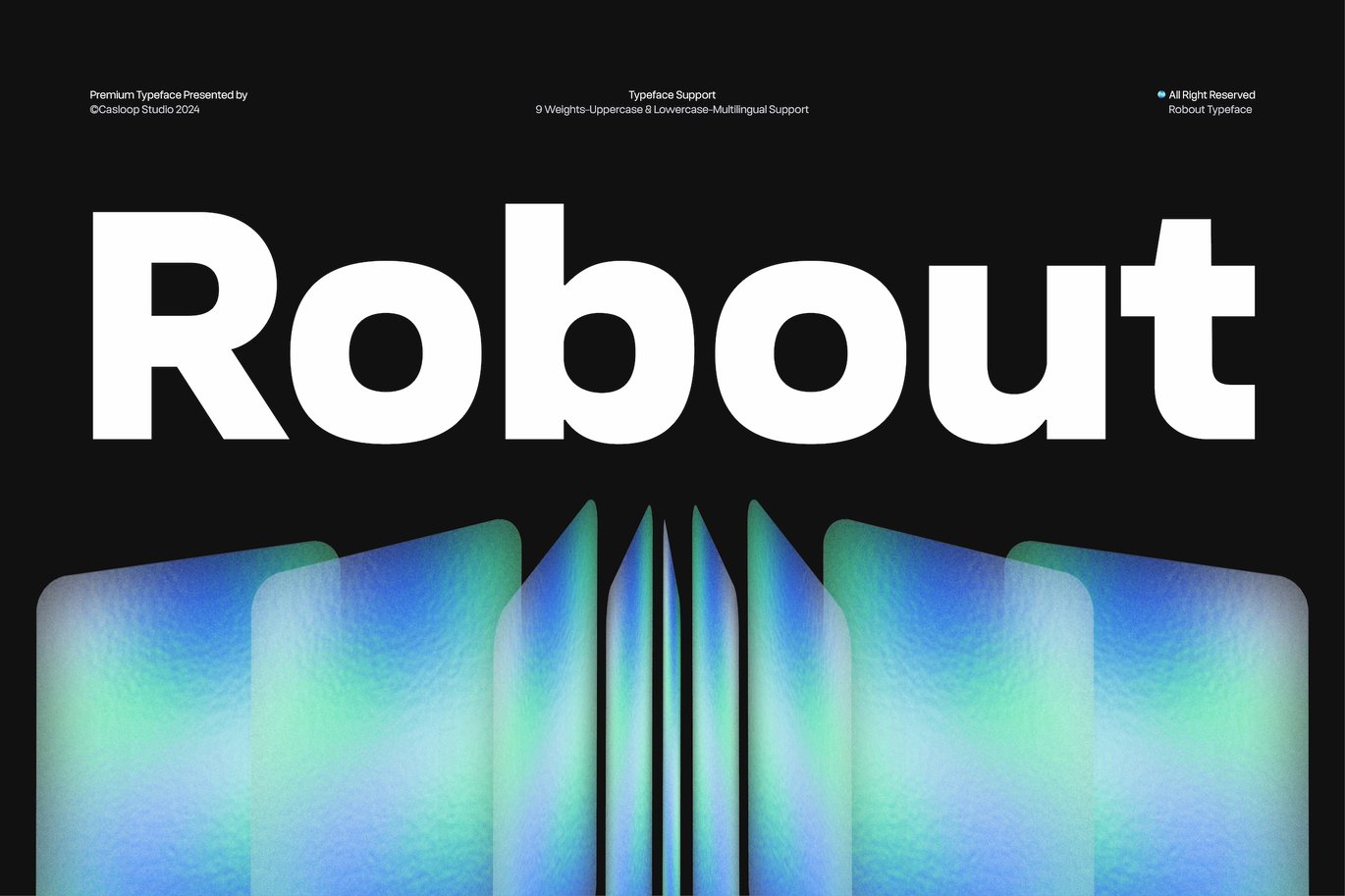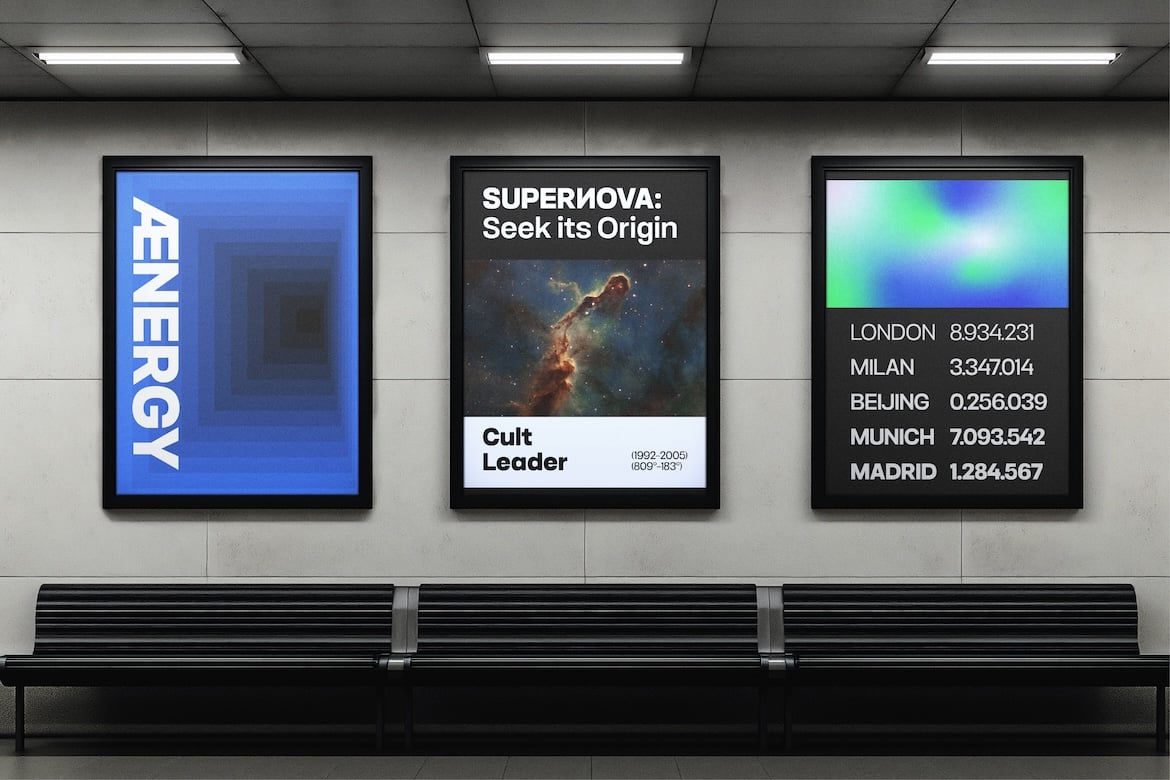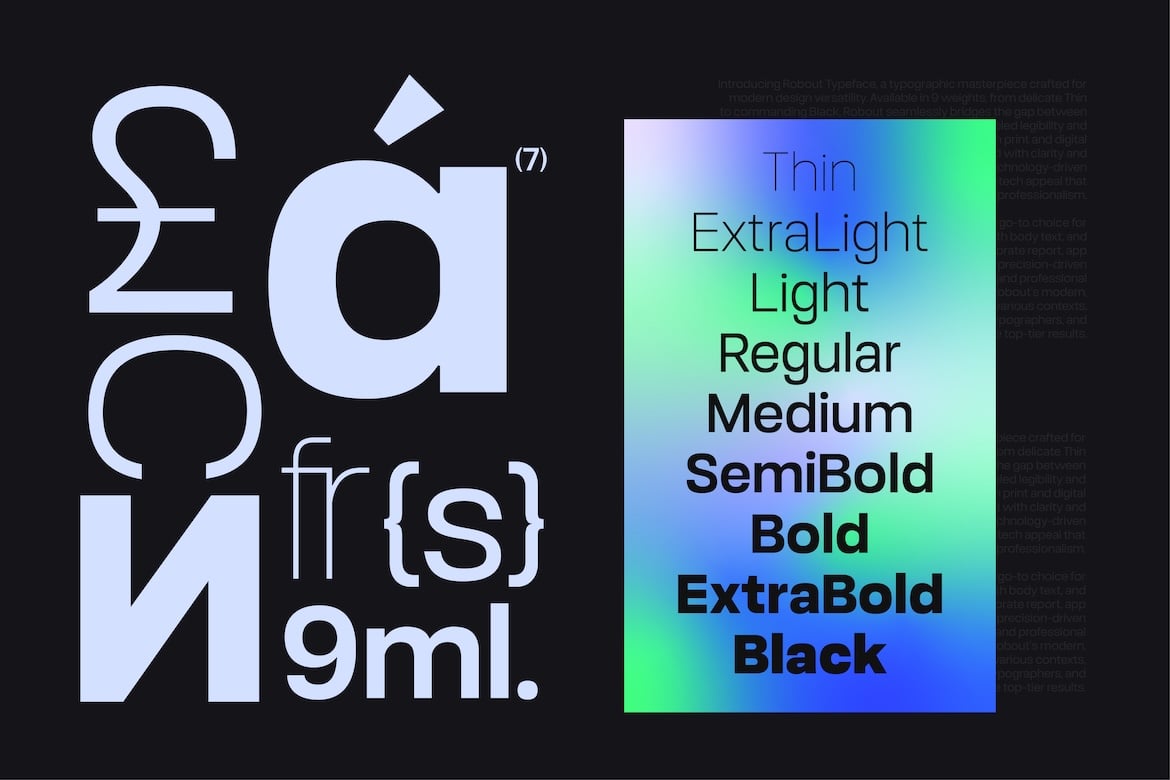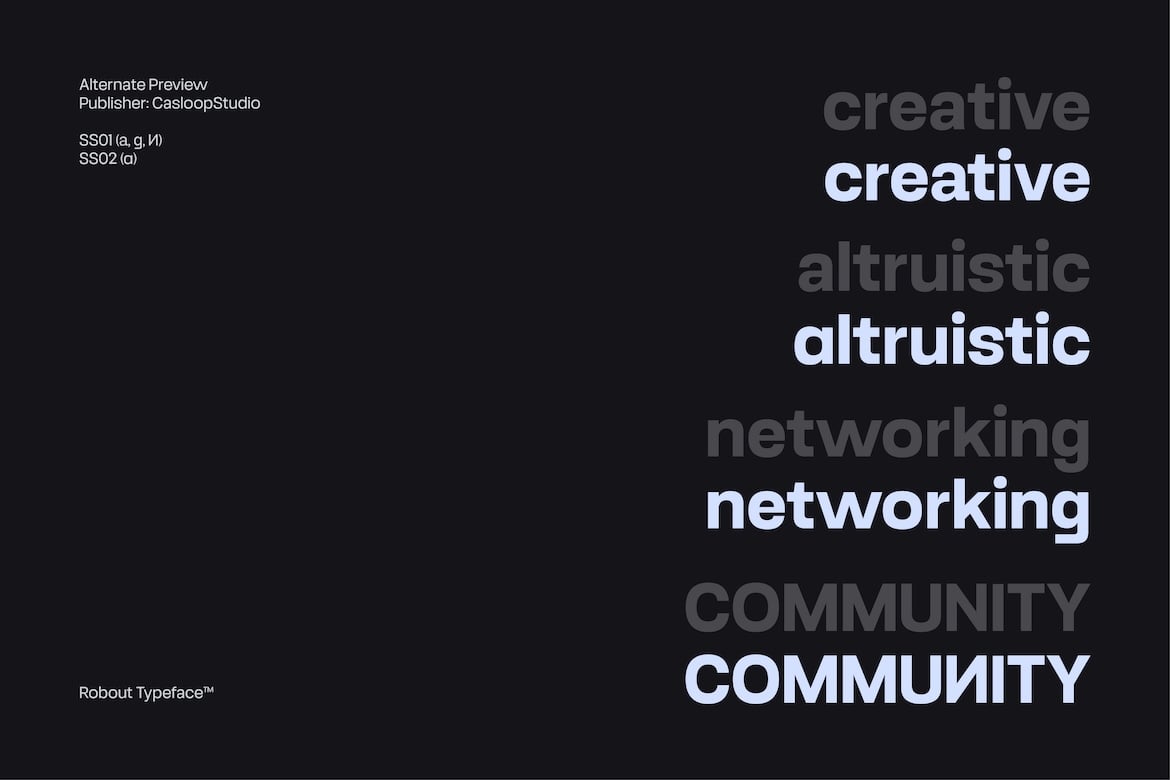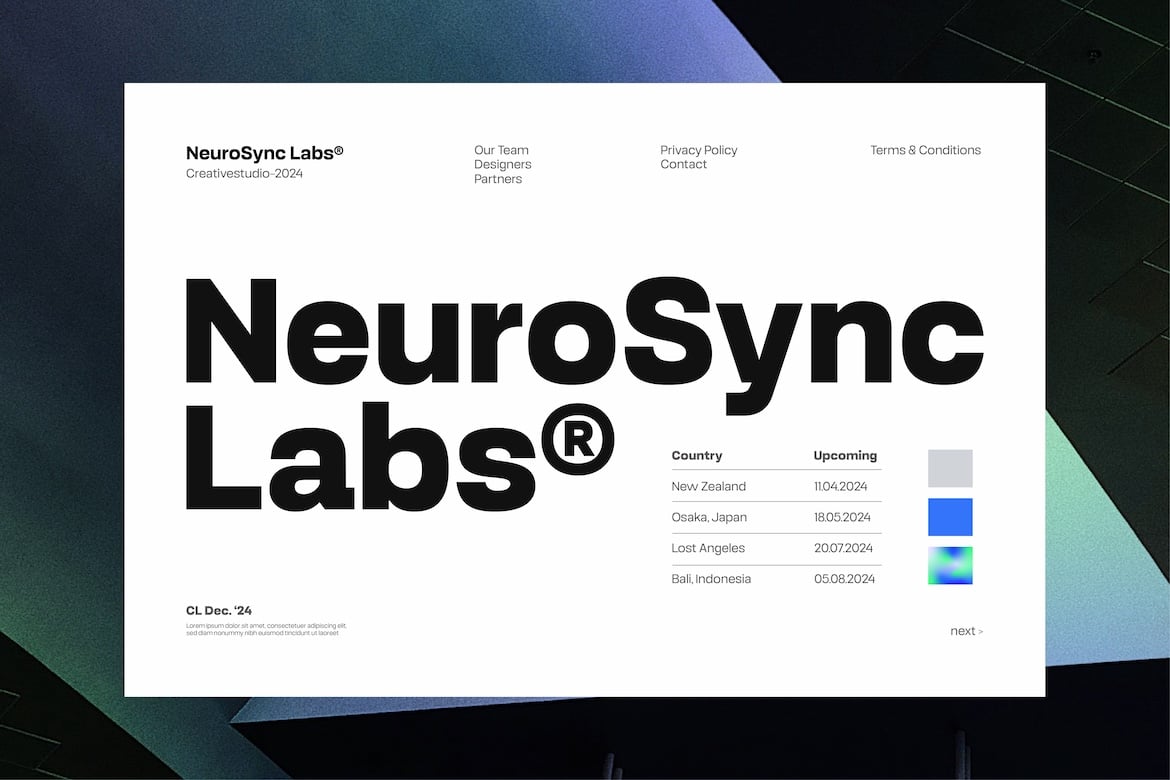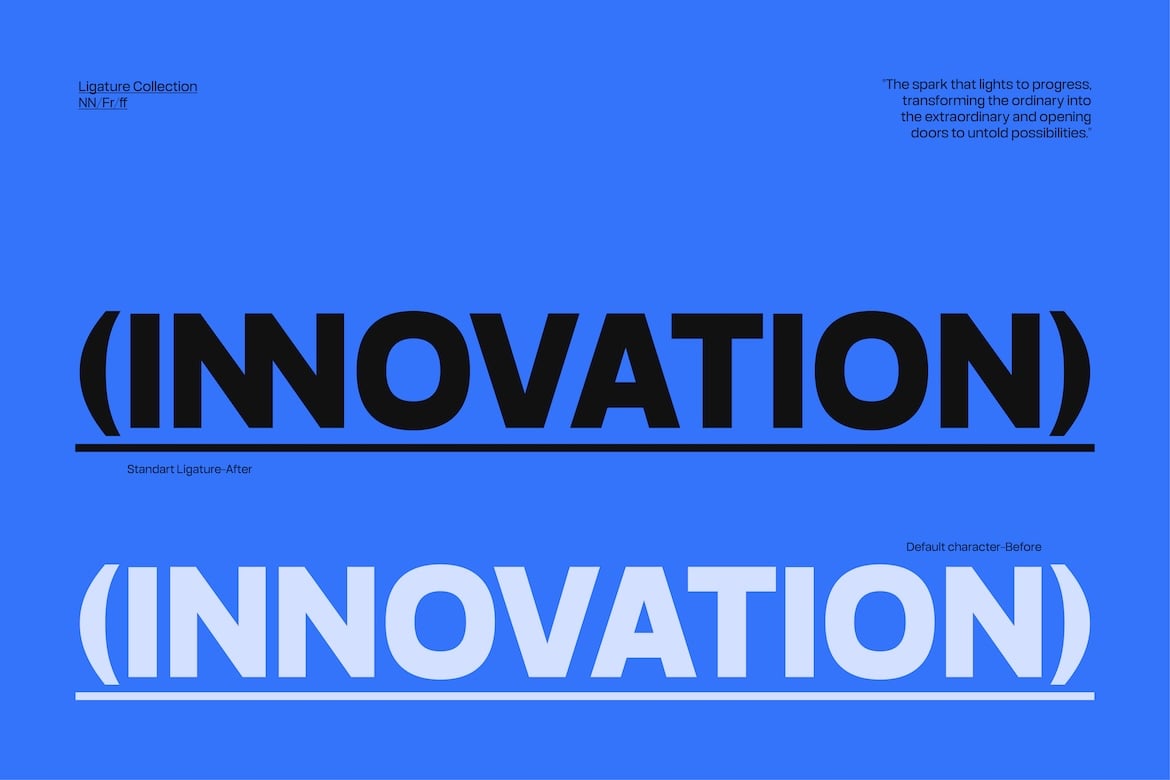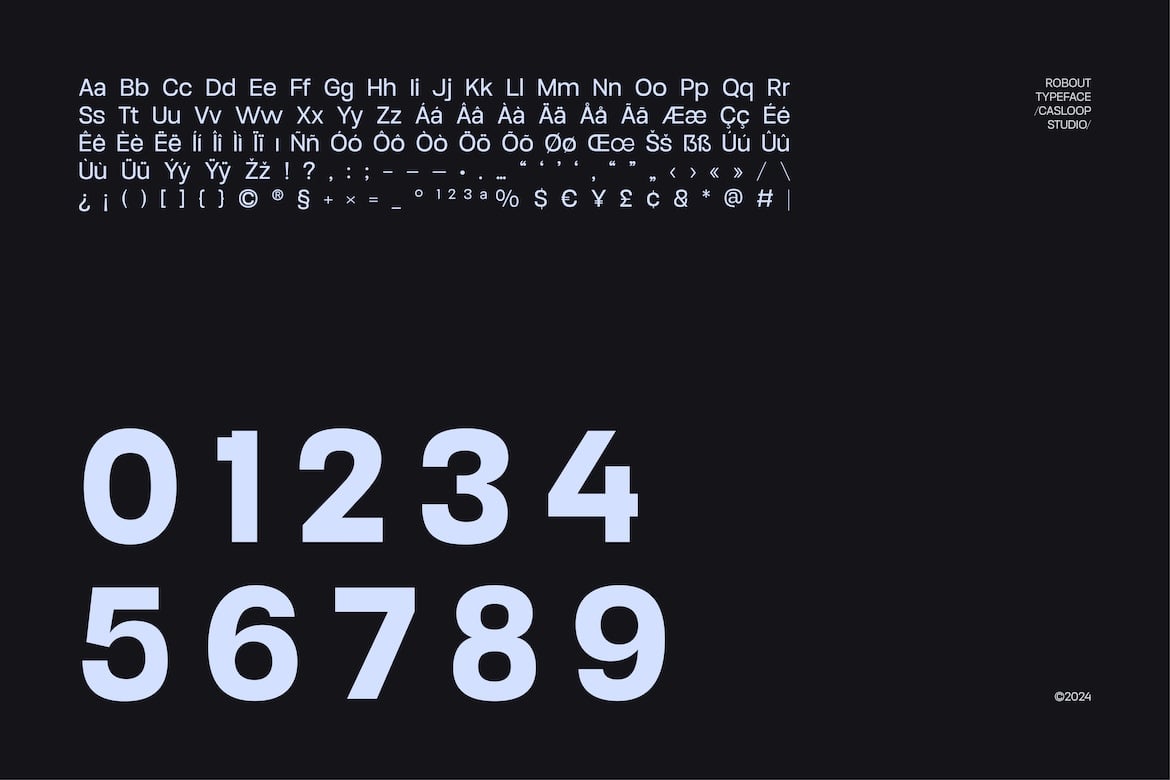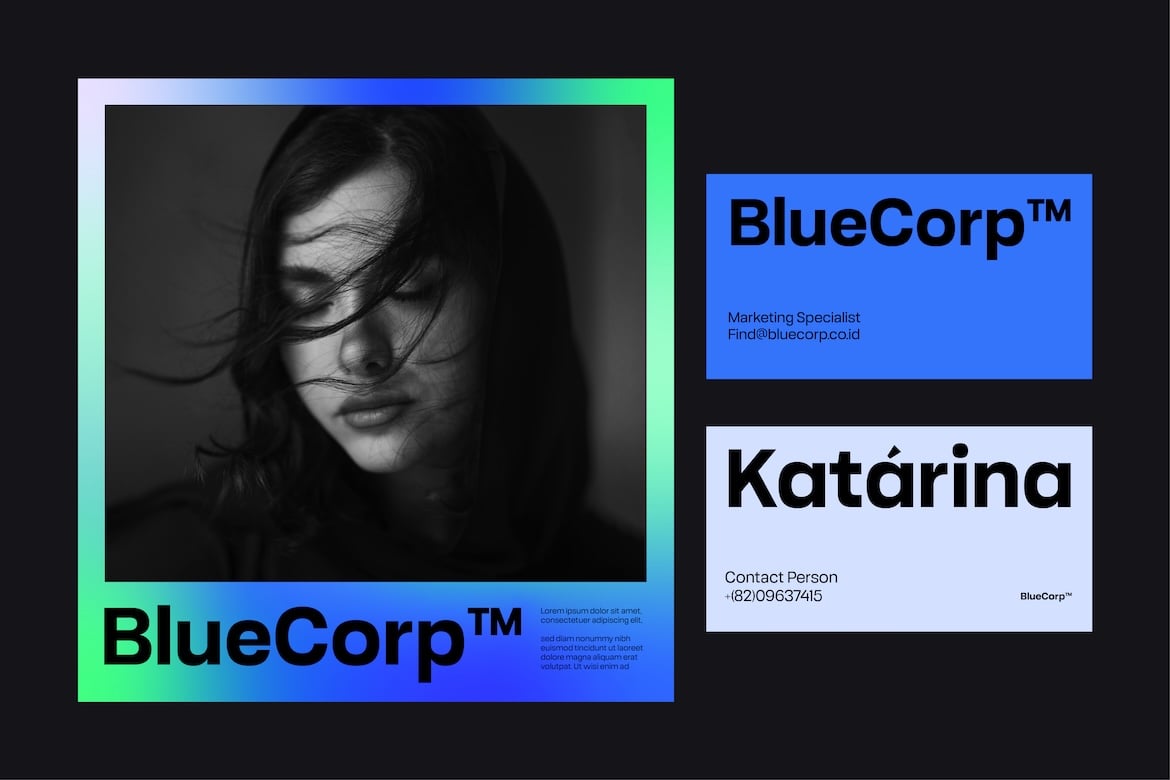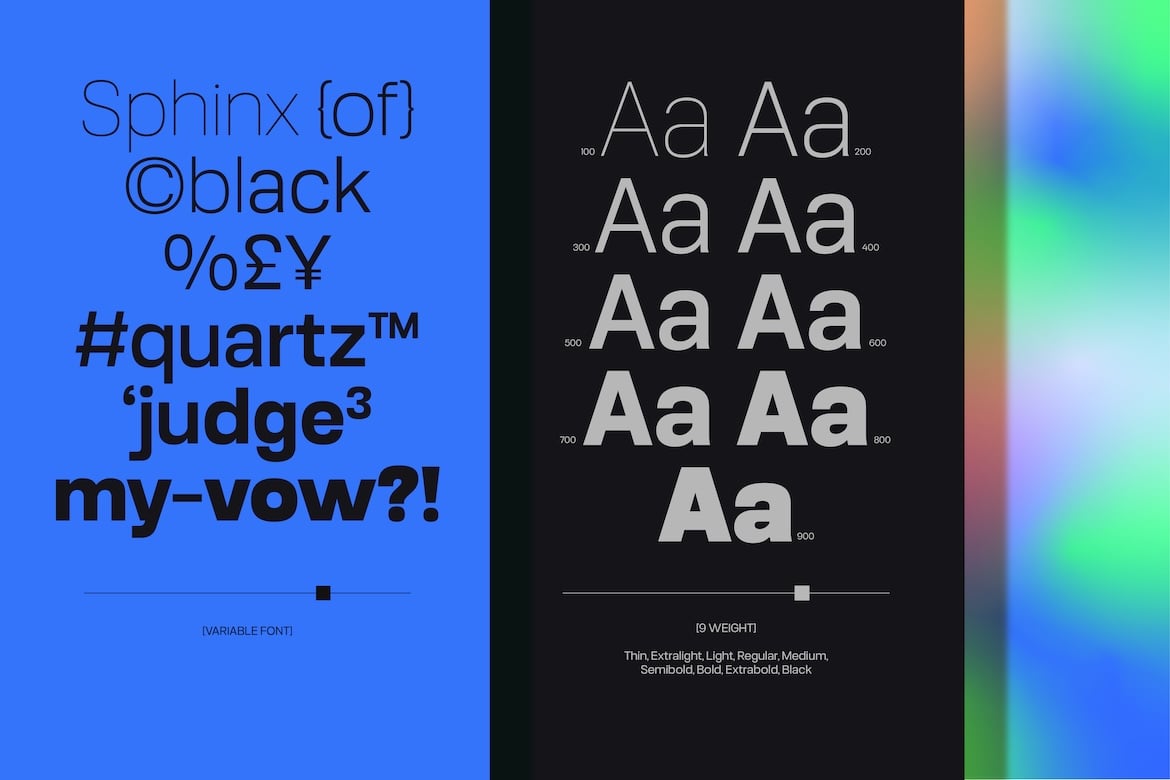
Robout – Soft Robot Estate Branding Geometric Font
Robout is a marquee-worthy modern sans-serif typeface designed for contemporary branding, editorial design, and digital interfaces. With clean, geometric letterforms and a focus on clarity and precision, Robout exudes professionalism and sophistication. Inspired by geometric grotesk styles, Robout seamlessly balances functionality with contemporary flair. Here are the key features and highlights of the typeface:
Features of Robout Typeface
- Wide Range of Weights: Robout includes nine weights, from Thin to Black, ensuring flexibility for any project, whether you’re creating elegant headings or clear body text.
- Variable Font Option: The variable font format allows seamless adjustment of weight and width, giving designers precise control over typography in responsive designs.
- Multilingual Support: Robout supports a wide array of languages, including accented characters, making it an excellent choice for global audiences. Bosnian, Catalan, Czech, Danish, German, English, Spanish, Estonian, Finnish, French, Bergen, Wild, Irish, Mango, Croatian, Hungarian, Icelandic, Italian, Lithuanian, Tan, Latvian, Maltese, Dutch, Norwegian, Polish, Haas, Portuguese, Romanian, Slovak, Slovenian, Albanian, Swedish, Turkish.
- Legibility Across Contexts: Its clean letterforms and optimal spacing make it ideal for both print and digital environments, from corporate branding to app interfaces.
- Innovative Design Details: With alternate glyphs and ligature options, Robout offers creative flexibility for unique typographic expressions.
- High-Tech Aesthetic: The typeface reflects a futuristic and tech-driven appeal, making it a perfect fit for startups, technology firms, and modern corporate projects.
Applications:
- Branding: Robout’s clean and bold aesthetic makes it suitable for logos, corporate identity, and packaging.
- Editorial & Publishing: Perfect for magazine layouts, brochures, and web articles due to its legibility and modern style.
- UI/UX Design: A great choice for apps and websites that prioritize clarity and a sleek visual experience.
- Marketing Campaigns: Its versatile weights can create eye-catching headlines and readable body text for posters and social media graphics.
Robout stands as a professional yet approachable typeface, balancing a clean, minimalist style with a hint of boldness. It communicates trust, innovation, and clarity, making it suitable for industries ranging from technology and education to fashion and media.